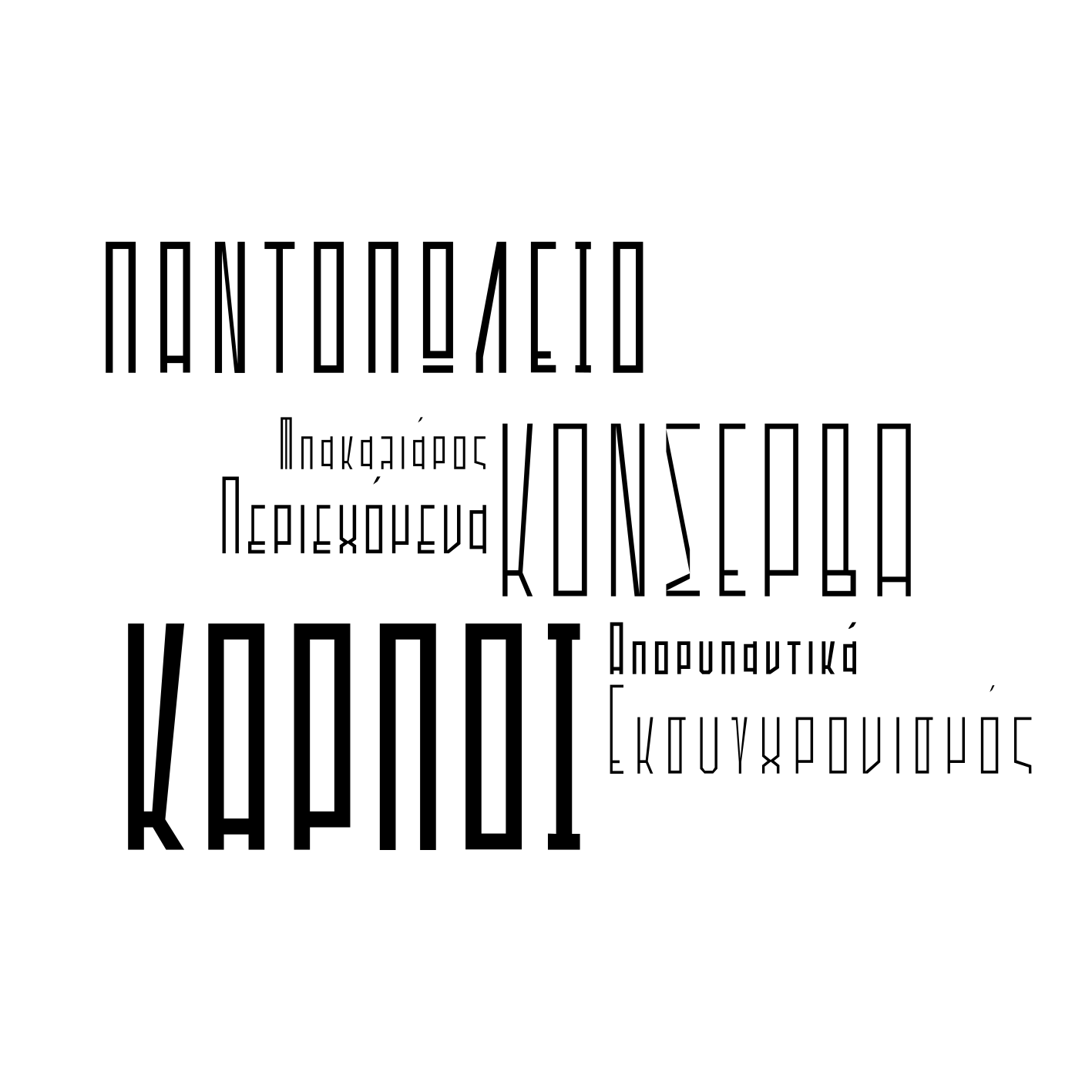
PVF Giraffe #Free #Geometric Extra-#Condensed #Sans #Display #OTF #Typeface
PVF_Giraffe is a Geometric Extra-Condensed Sans Display Opentype Font with low bars and asymmetric eyes and bowls rectangularly squared brought from Greek old towns' countryside small shops. It features Greek & Latin in light, regular, medium and bold styles including the italics of them with one-height lowercase baselined descenders for a small caps use.